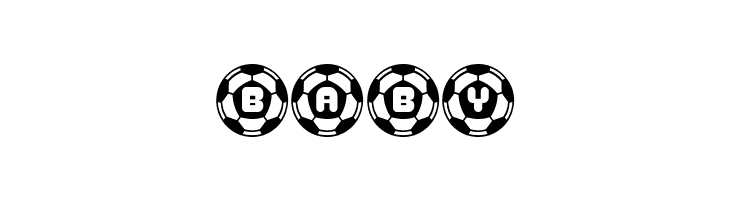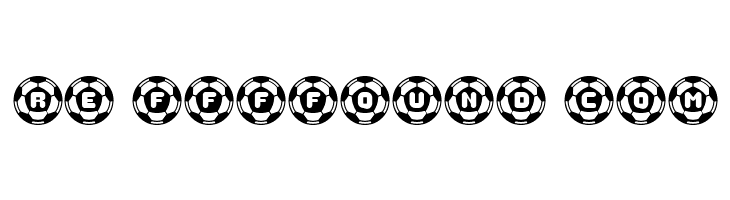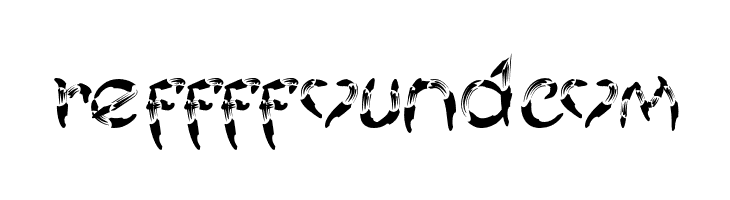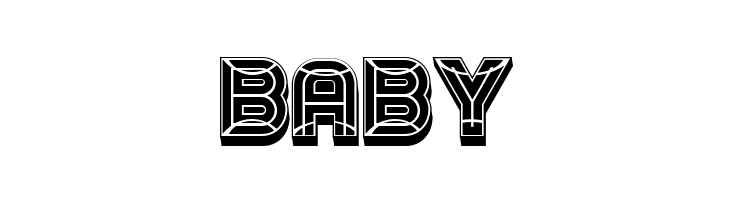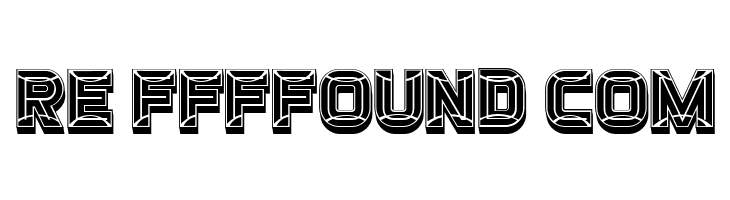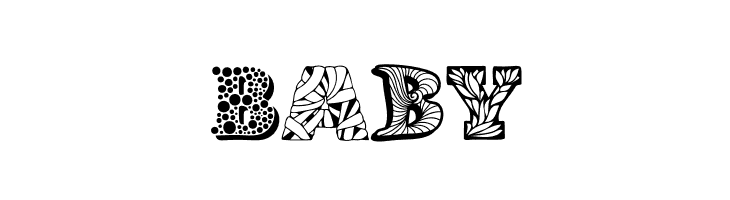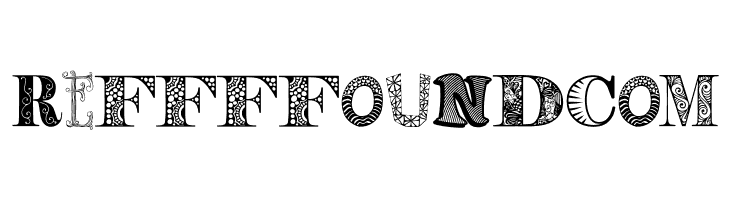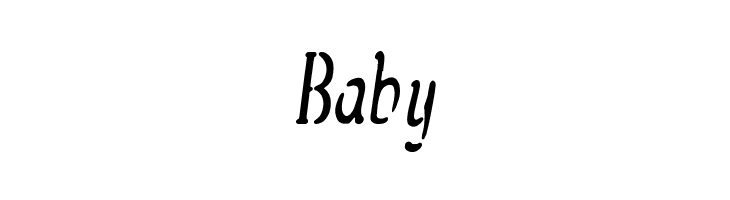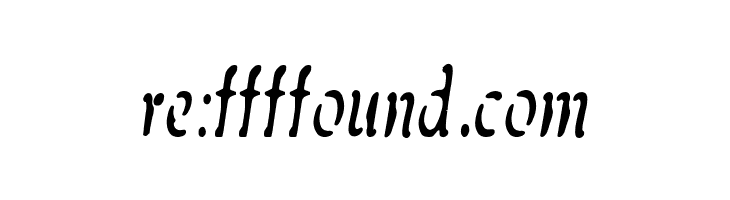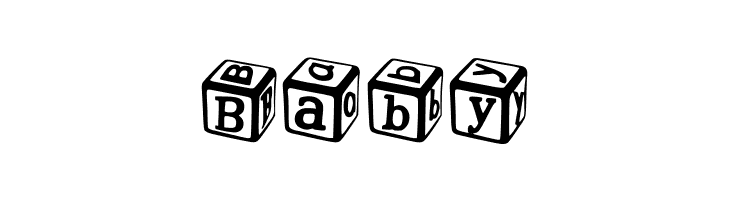
A decorative font with intricate detailing and bold, uniform characters.
A bold, decorative font with tribal-inspired elements and dynamic strokes.
A decorative font with pointed serifs and geometric structure, ideal for bold designs.
A bold, decorative font with a 3D effect and textured circle pattern.
A playful, textured font with a cloud-like, hand-drawn appearance.
A bold, dripping font with a dramatic and eerie style.
A bold, brush-stroke font with dynamic and artistic flair.
A bold, geometric font with a three-dimensional, retro-inspired design.
A bold, hand-drawn font with a playful, textured appearance.
A playful, snake-themed decorative font with bold, rounded letters.
A playful, tech-inspired font with bold, rounded lines and geometric structure.
A bold, jagged font with a playful, crocodile-inspired design.
A playful, snake-themed decorative font with bold, intricate characters.
A decorative and artistic font with intricate patterns in each letter.
A decorative font with a snowflake pattern, perfect for festive designs.
A playful, bubble-filled decorative font with bold, rounded characters.
A playful font with characters encased in soccer ball designs, perfect for sports themes.
A bold, playful font with a zigzag pattern inside each uppercase letter.
A playful, space-themed decorative font with bold, blocky characters.
A playful 3D dice-themed font with bold, decorative characters.
A whimsical decorative font with characters encased in floral designs.
Whimsical, love-themed decorative font with illustrated glyphs.